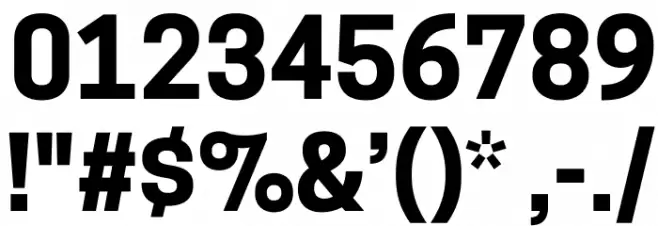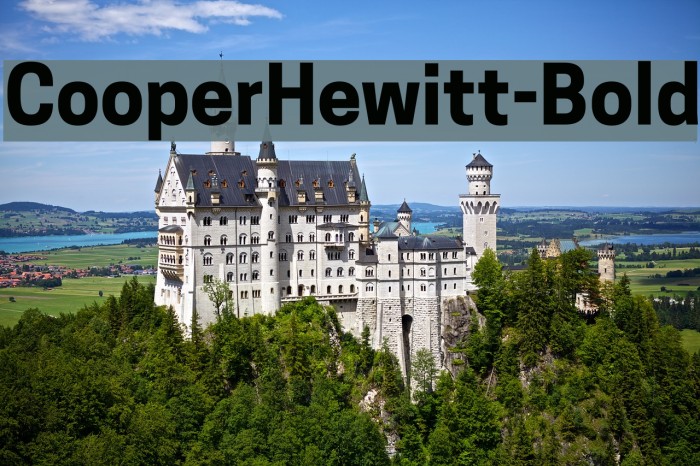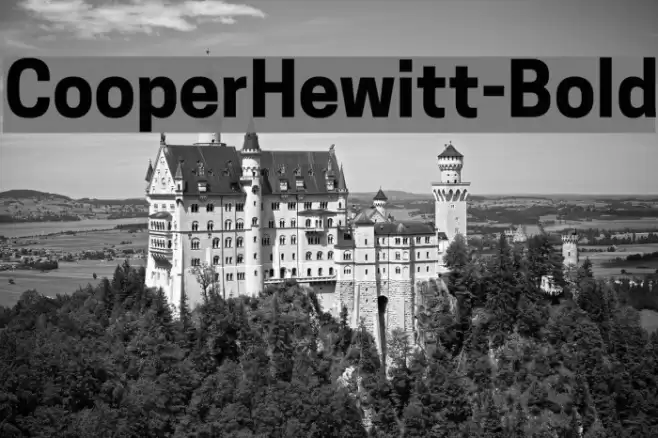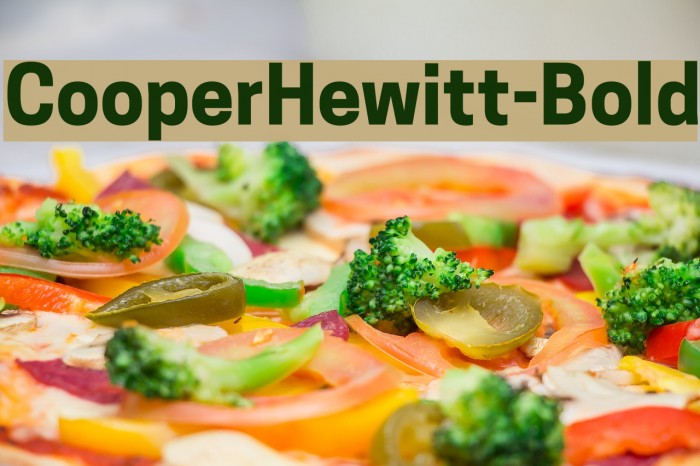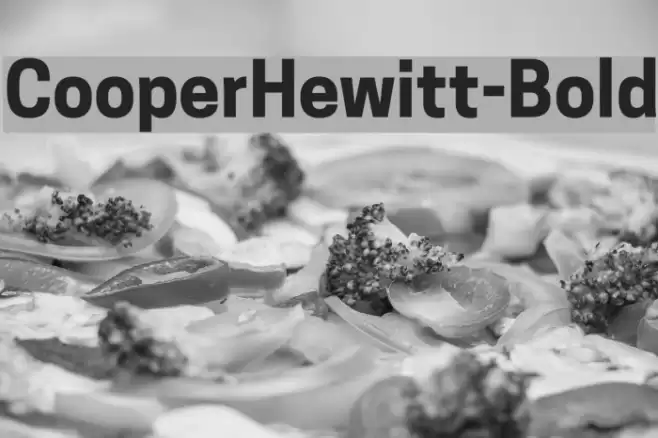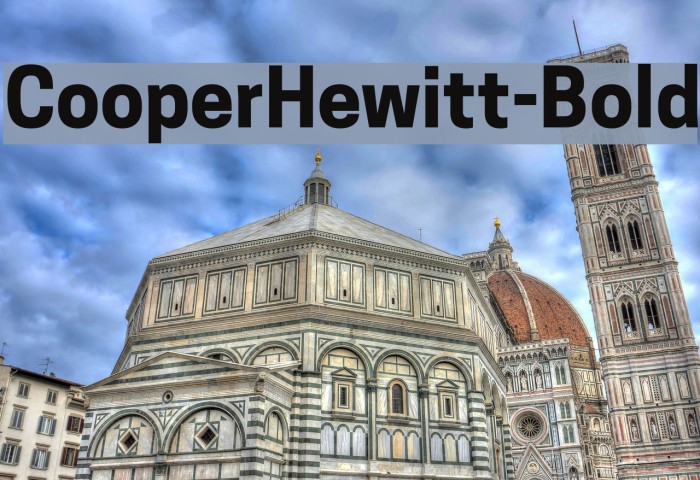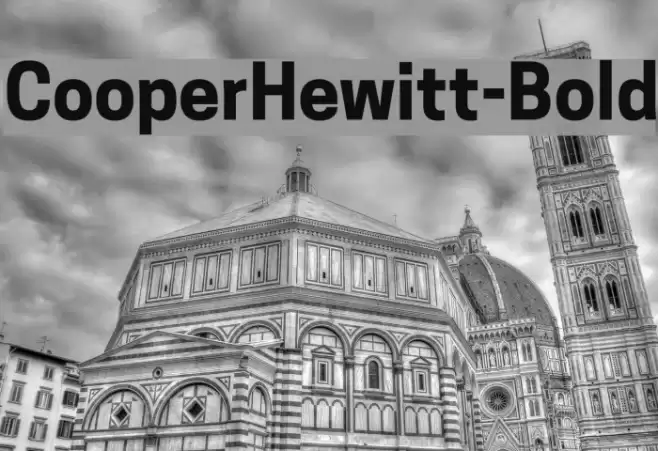
CooperHewitt-Bold Font
| Caz de utilizare | Headlines, Logos, Branding |
| Proiecte propuse | Ideal for branding, advertising, headlines, and digital interfaces where a modern and bold statement is needed. |